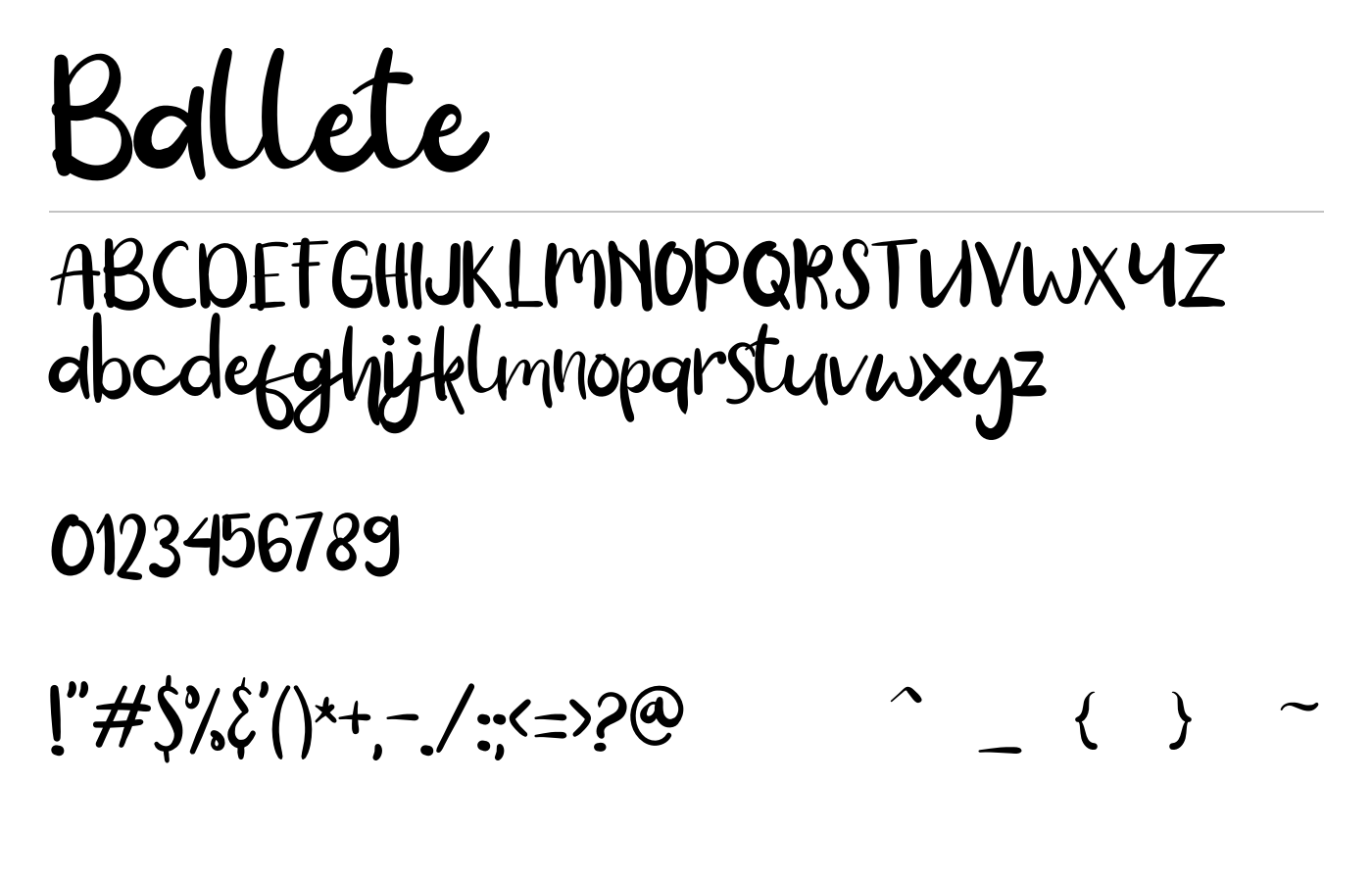
Ballete is a playful and casual handwritten sans serif font with a friendly, informal charm. Its slightly uneven strokes and varied letter heights create a natural, lively rhythm, making it perfect for personal projects, invitations, or branding that seeks a warm, approachable feel. This font works well in headlines and short texts where a spontaneous, human touch is desired.
Ballete Font
About Ballete Font